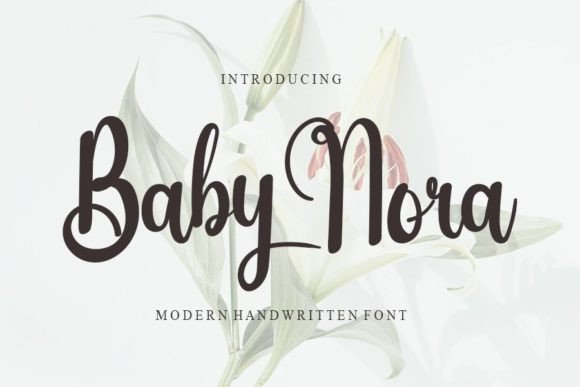
Immerse yourself in the world of Baby Nora Font, a captivating script font that dances across your screen with its graceful strokes and elegant curves. This masterpiece is not just a font; it's an experience that will transform your designs into works of art. Whether you're a passionate designer, a creative entrepreneur, or simply a lover of beautiful typography, Baby Nora Font is your perfect companion.
Journey through the endless possibilities that Baby Nora Font presents. Its friendly and approachable nature makes it perfect for adding a touch of warmth and personality to your business reports, presentations, and marketing materials. Imagine your words flowing effortlessly across the page, leaving a lasting impression on your audience. Baby Nora Font isn't just a font; it's a powerful communication tool that speaks volumes about your professionalism and attention to detail.
Dive into the depths of Baby Nora Font's versatility and let your creativity soar. Its contemporary and fresh style seamlessly adapts to a wide range of design projects, from wedding invitations and greeting cards to social media posts and branding materials. Each letterform is meticulously crafted to retain its calligraphic charm while exuding a modern and sophisticated aesthetic. Baby Nora Font is your gateway to creating designs that captivate and inspire.
Indulge in the beauty of Baby Nora Font and elevate your designs to new heights. Its timeless appeal ensures that your creations will remain relevant and captivating for years to come. Embrace the endless possibilities that Baby Nora Font offers and unlock a world of design excellence. Make a statement, leave a lasting impression, and let your designs speak for themselves.